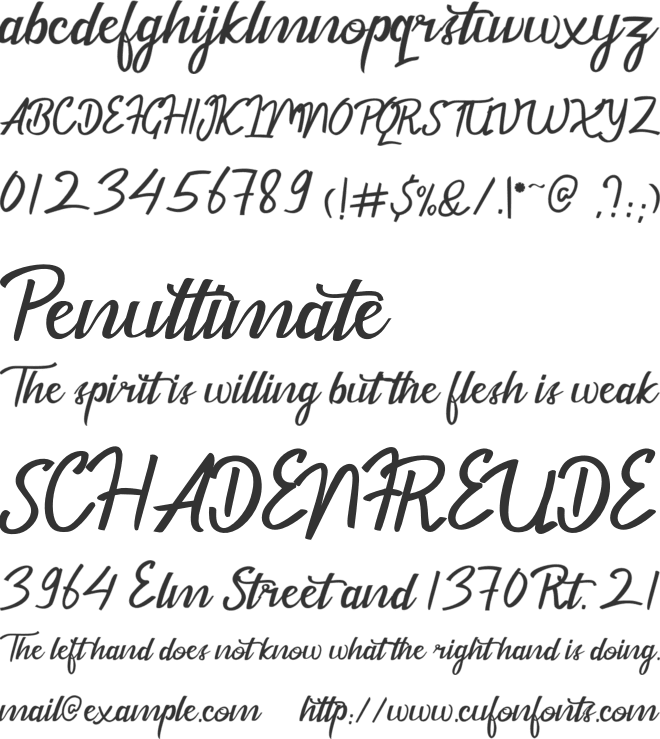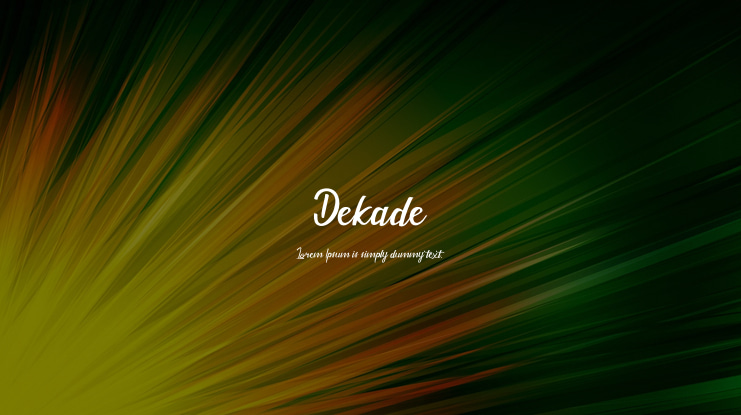
Dekade Font
DEMO / PERSONAL USE ONLYCommercial licensing can be purchased at creativemarket.com (https://creativemarket.com/bangtoyib/2345162-Dekade-Brush-Font-Swash).Dekade Brush Font is a hand brush typeface, with authentic and modern style This font functions most strongly as a display or headline font. suitable for logo, logotype, branding,wedding, fashion, label, book cover, t-shirt, instagram post, and other.